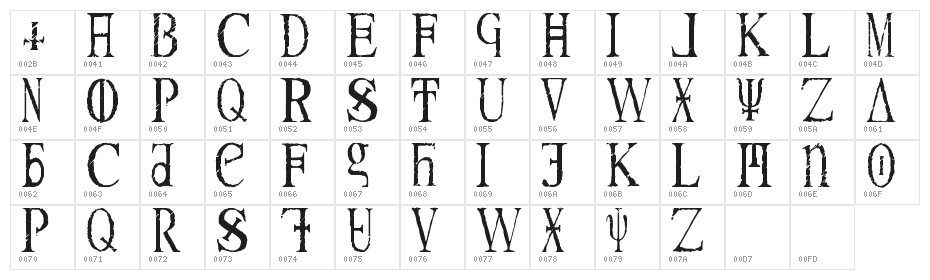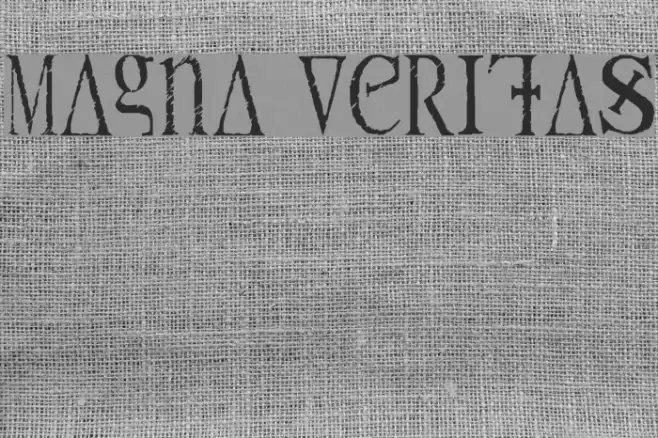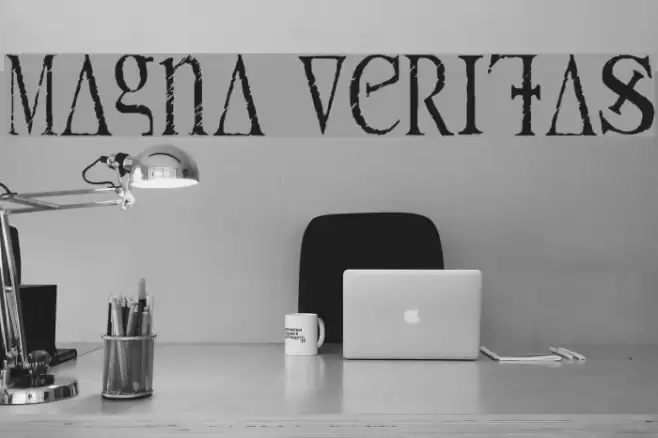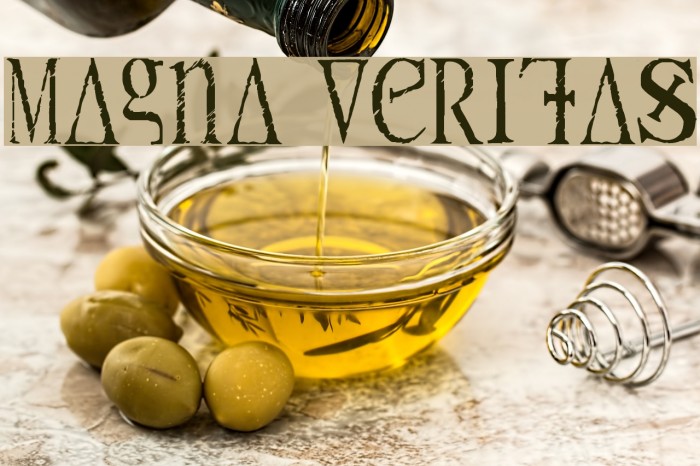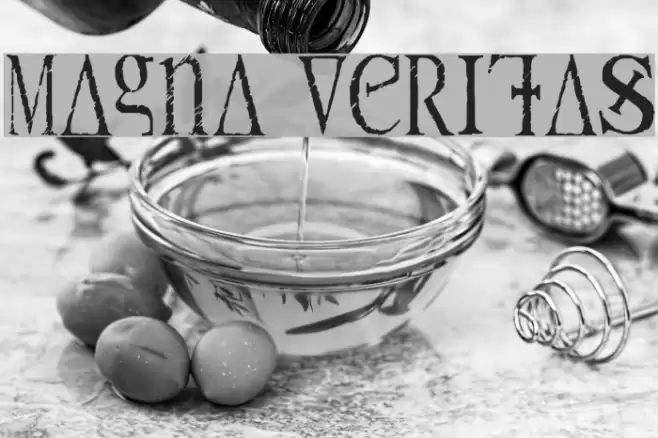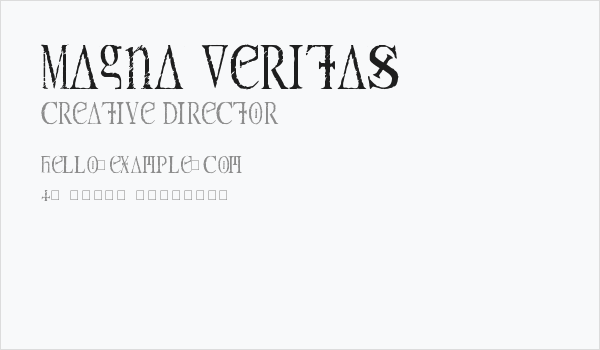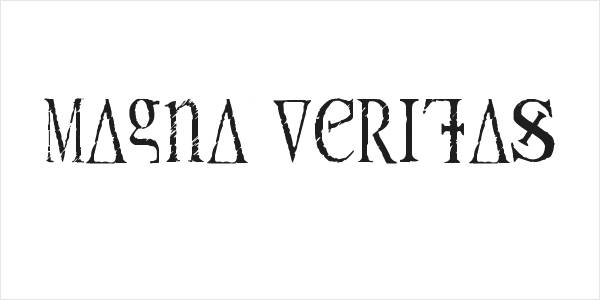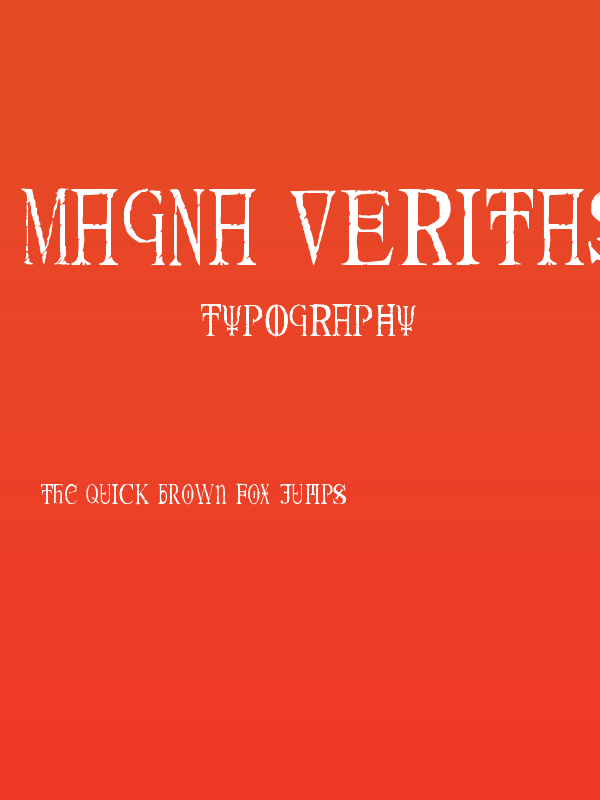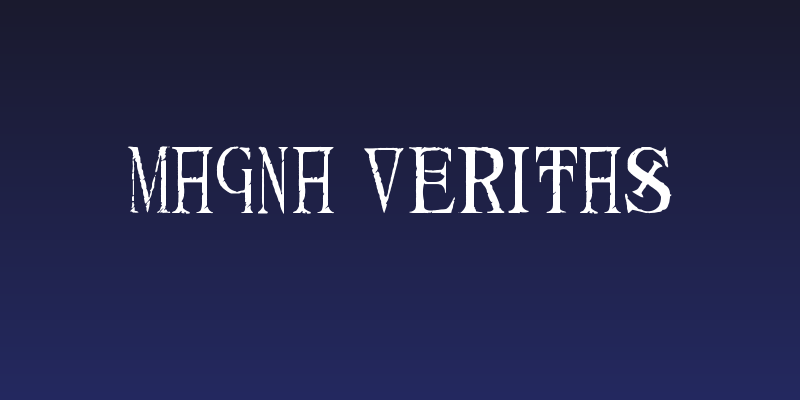
Magna Veritas Font
Magna Veritas Description
This font features a bold and dramatic style, characterized by its distressed and textured appearance. The letters have a rough, almost hand-drawn quality, with uneven edges and a slightly gothic influence. The uppercase letters are particularly striking, with sharp angles and unique flourishes that give them a distinctive look. The lowercase letters maintain the same rugged aesthetic, ensuring consistency throughout the typeface. This font is ideal for projects that require a bold statement, such as posters, album covers, or branding for edgy or alternative products.
| Proposed Projects | Ideal for posters, album covers, and edgy branding. |